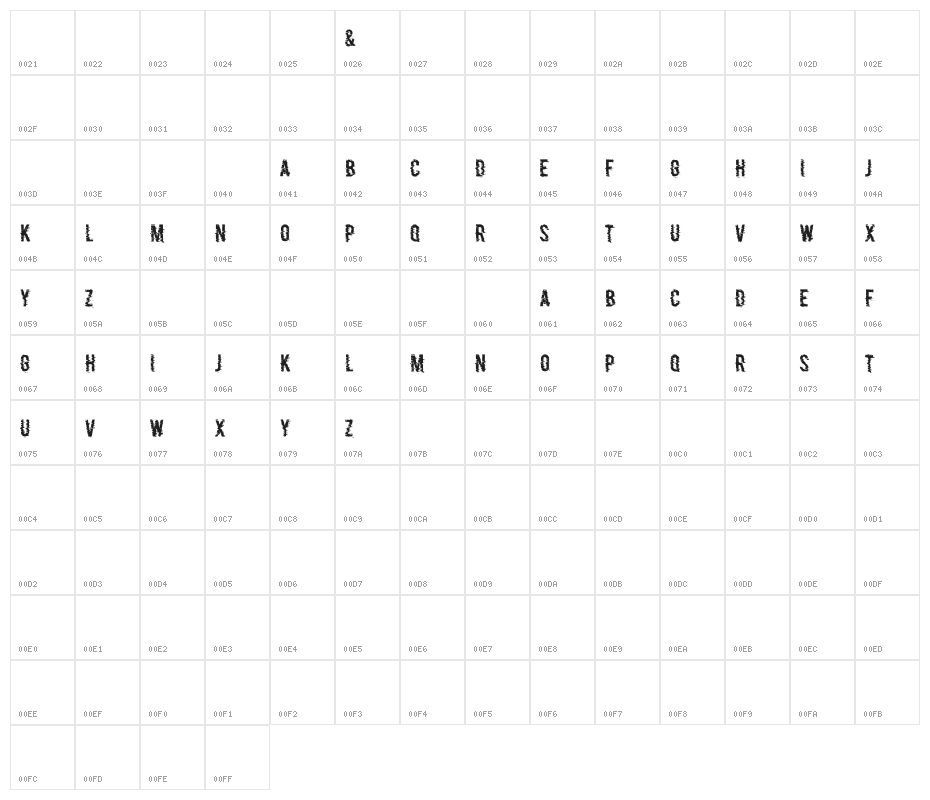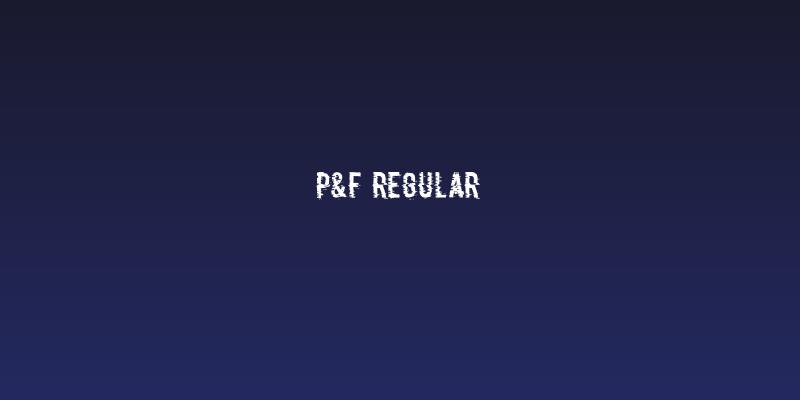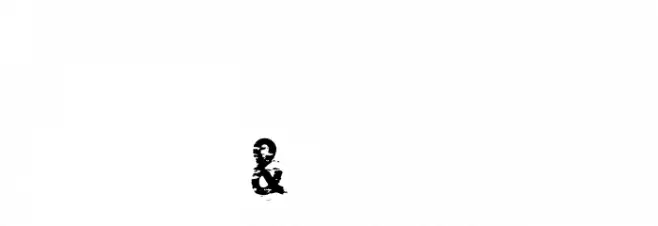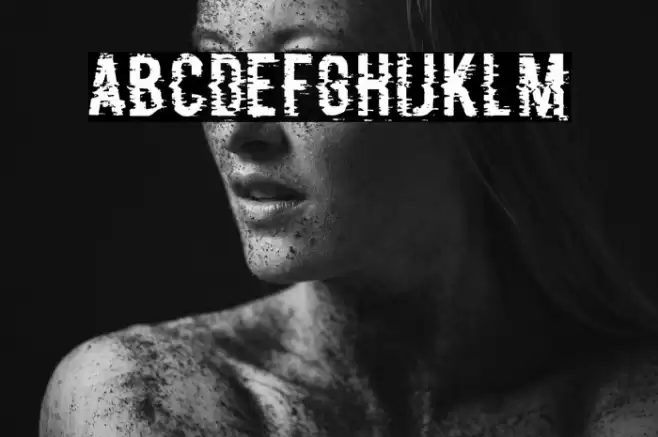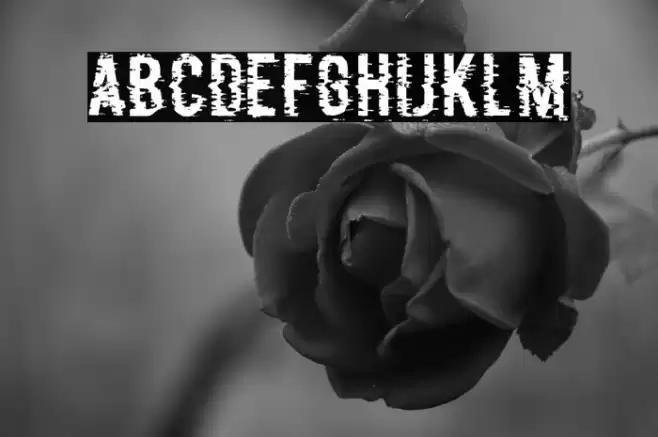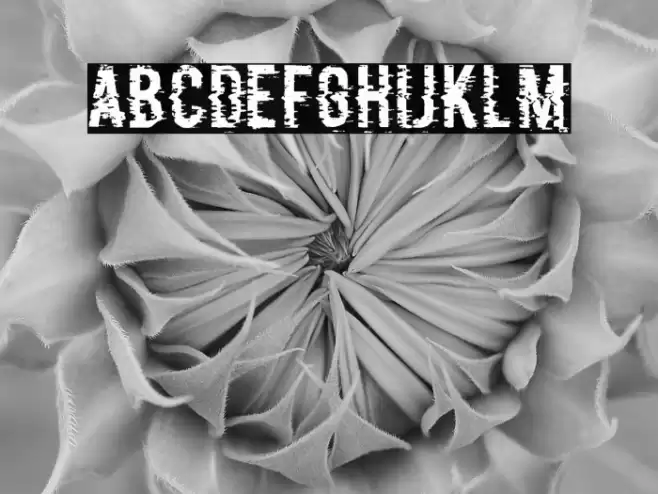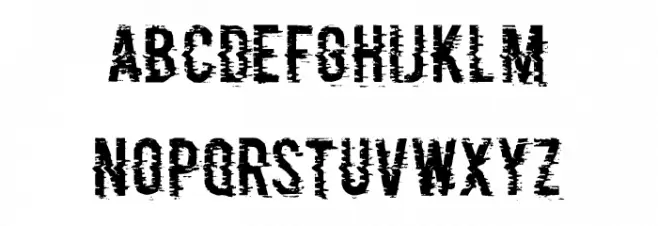
P&F Regular Font
✎ Distorted Eroded
| Gesamtstil | Grunge, Urban, Edgy |
| Vorgeschlagene Projekte | Perfect for album covers, posters, streetwear branding, or any design needing a bold, edgy look. |